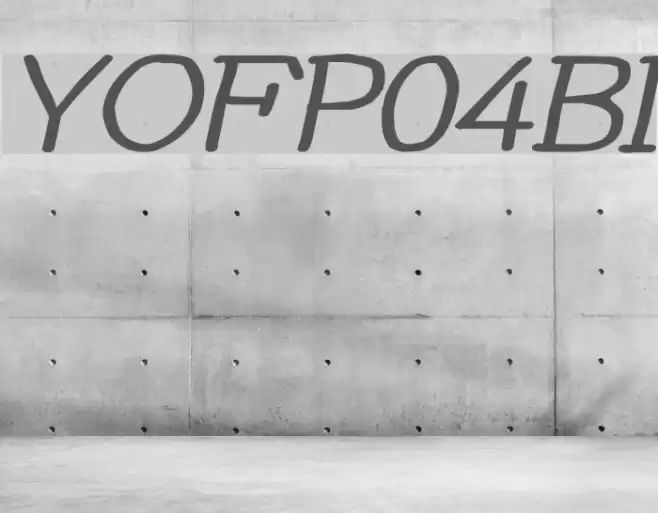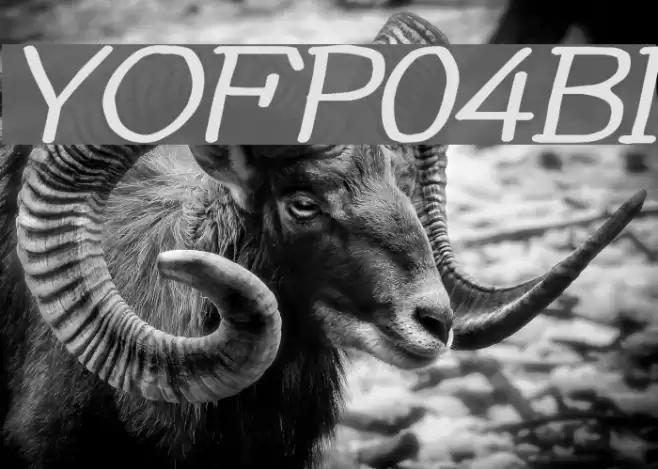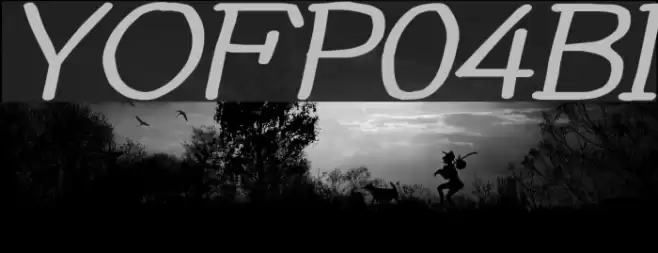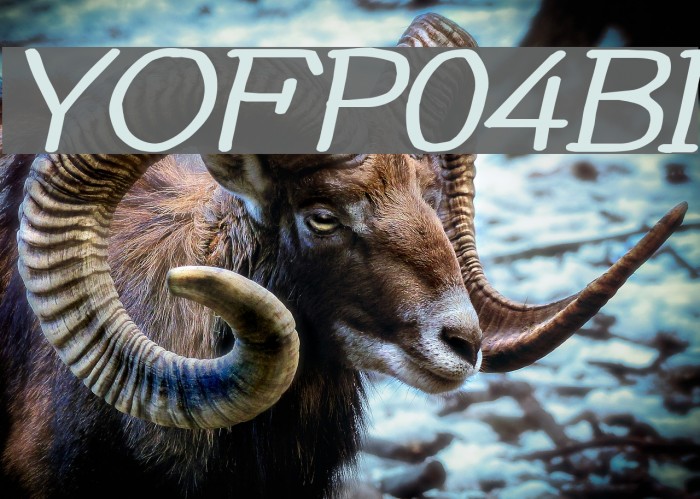
YOzFontP04 Bold Italic Font
YOzFontP04 Bold Italic Description
This font features a bold and italic style, characterized by its dynamic and flowing letterforms. The uppercase and lowercase letters exhibit a consistent slant, adding a sense of movement and elegance. The strokes are thick, providing a strong presence on the page, while the italic angle enhances its fluidity. The numerals and special characters maintain the same bold and italicized characteristics, ensuring uniformity across all glyphs. This font is well-suited for applications that require emphasis and style, such as headlines or logos.
A bold, italic font with dynamic and flowing letterforms from Uncategorized fonts.
- Proposed Projects: Ideal for branding, advertising, and editorial design where a bold and stylish impact is desired.